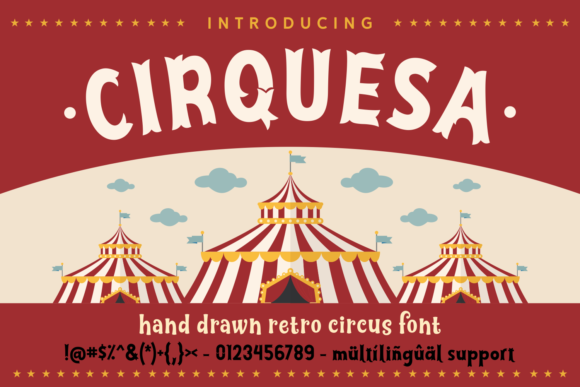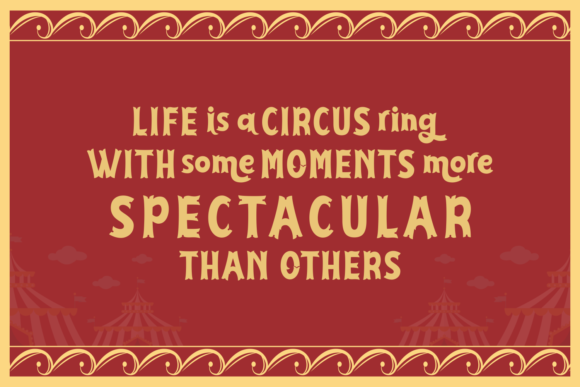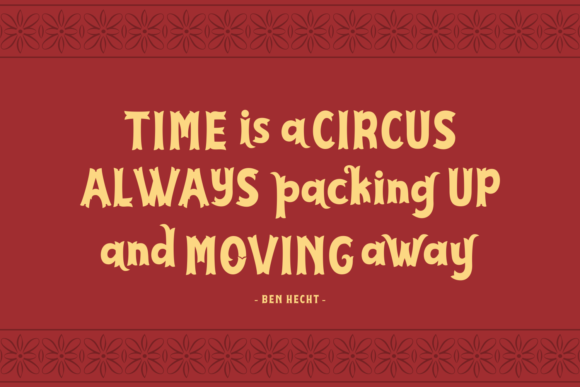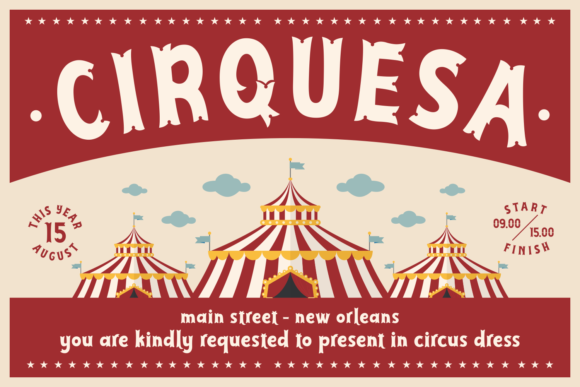
Cirquesa Font
About Cirquesa Font
Cirquesa is a beautiful display font, perfect for use in circus themed projects and more! This is the perfect party font, and is easy to read so you can use it in many different ways.